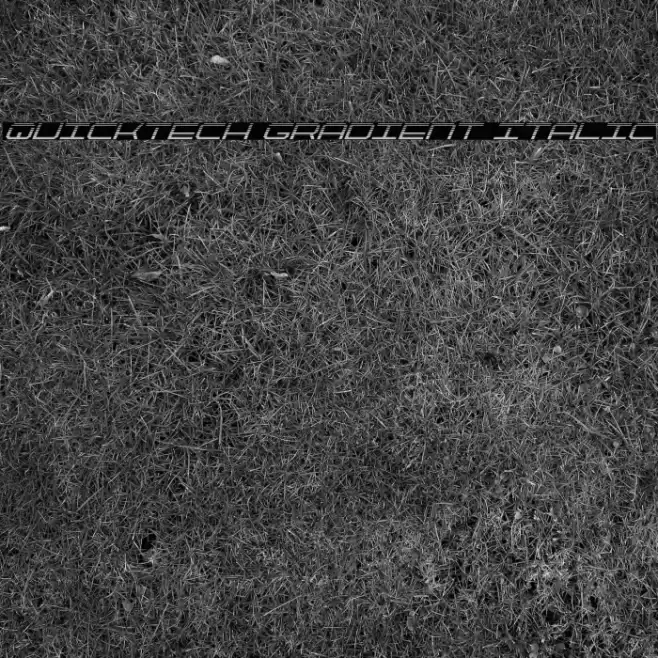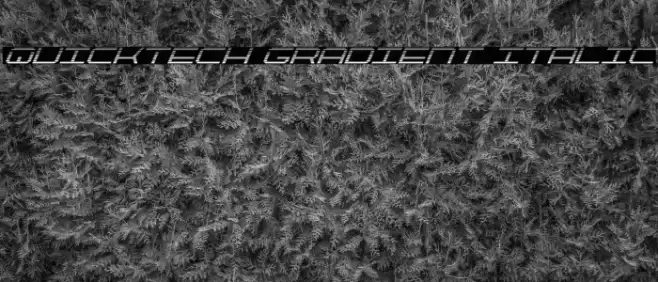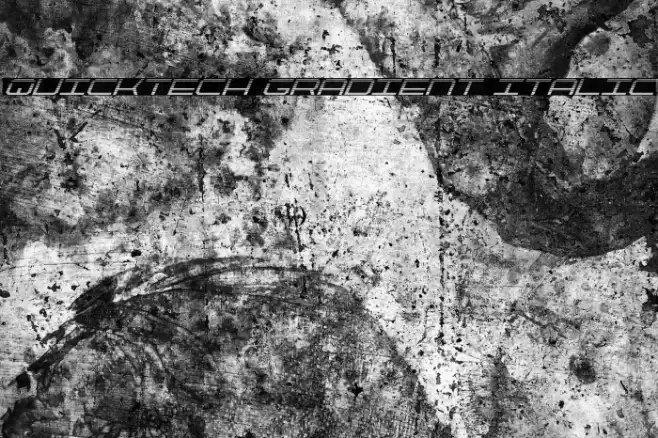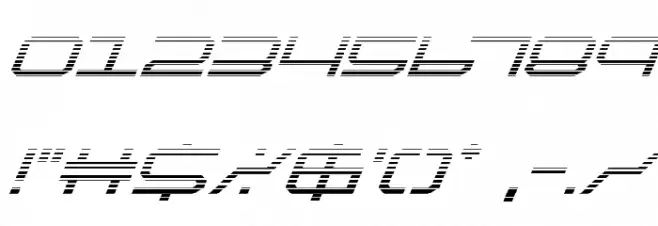
QuickTech Gradient Italic Font
QuickTech Gradient Italic Description
This font features a futuristic and dynamic design with a distinct italic slant, giving it a sense of motion and speed. The characters are composed of horizontal lines that create a gradient effect, enhancing the modern and technological feel. The uppercase and lowercase letters maintain a consistent style, with sharp angles and clean lines that contribute to its sleek appearance. The numerals and special characters follow the same design principles, ensuring uniformity across the font. This font is ideal for projects that require a contemporary and innovative look, such as tech branding, digital interfaces, or sci-fi themed designs.
A futuristic italic font with gradient line effects, perfect for tech and modern designs from Uncategorized fonts.